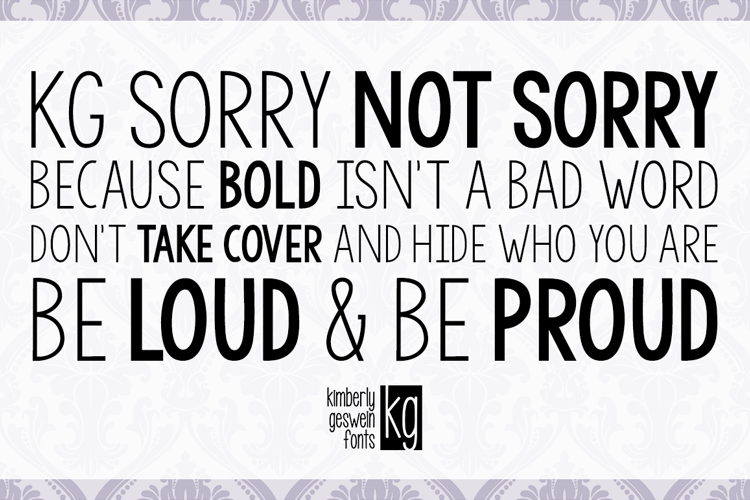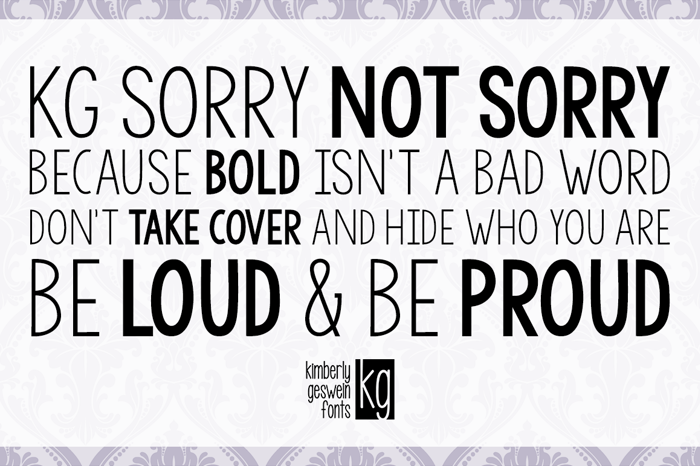
KG Sorry Not Sorry Font
A neat blocky solid font for headlines. In two weights.
absolutely love this. one of my go to fonts for a clean yet a bit quirky font.